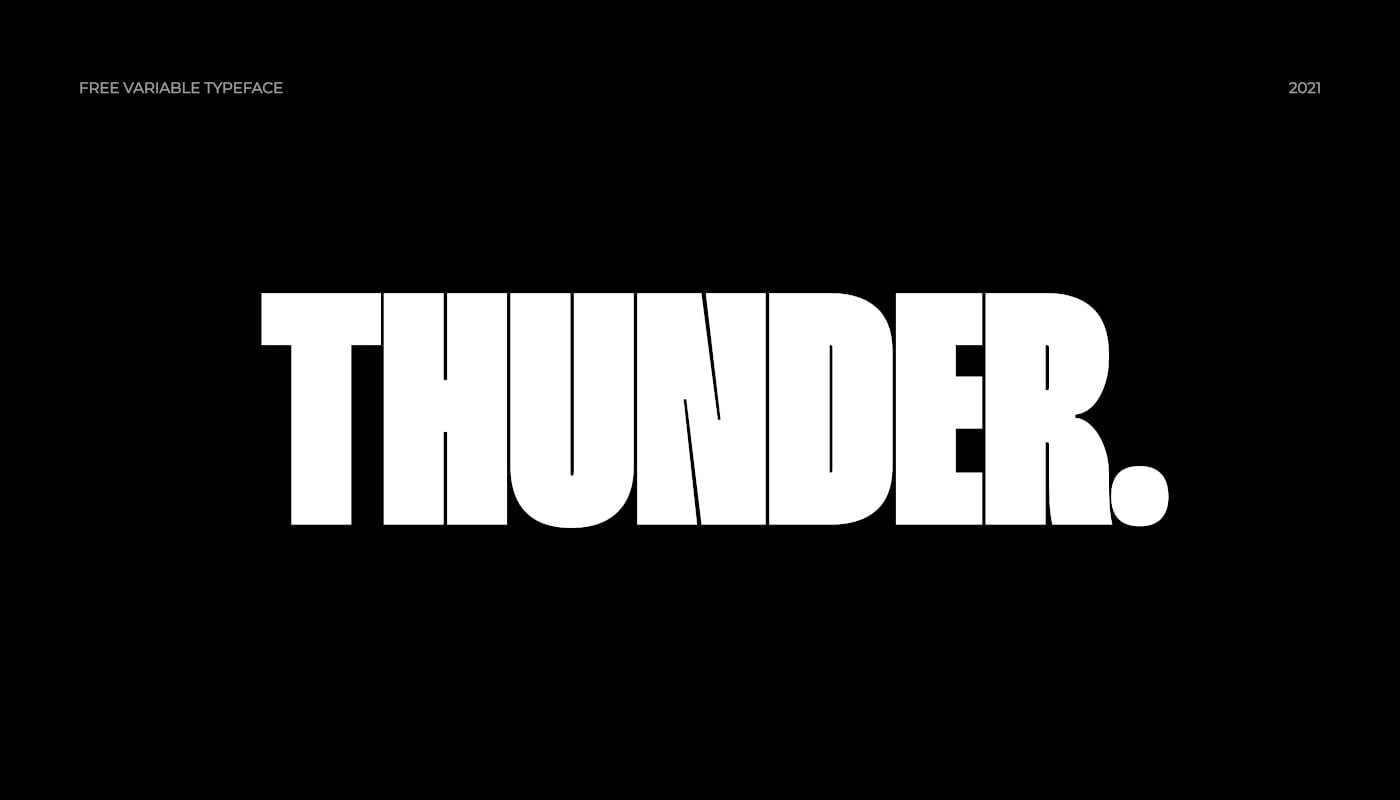
Thunder Font
Thunder Font is absolutely amazing!!! Finally, a thick font that has some swagger to it. Favorite fat font, hands down!! Avatar profile image. Thunder is a bold and strong condensed sans serif font family beautifully crafted to perform in short headlines in posters or contemporary.
Thunder Sans Serif Font Has 18 weights including an italic version, strong character, Sharp edges, and proportional contrast. The typeface is versatile and can be successfully used in Branding, Posters, Magazines, Websites, Mobile Apps, etc.